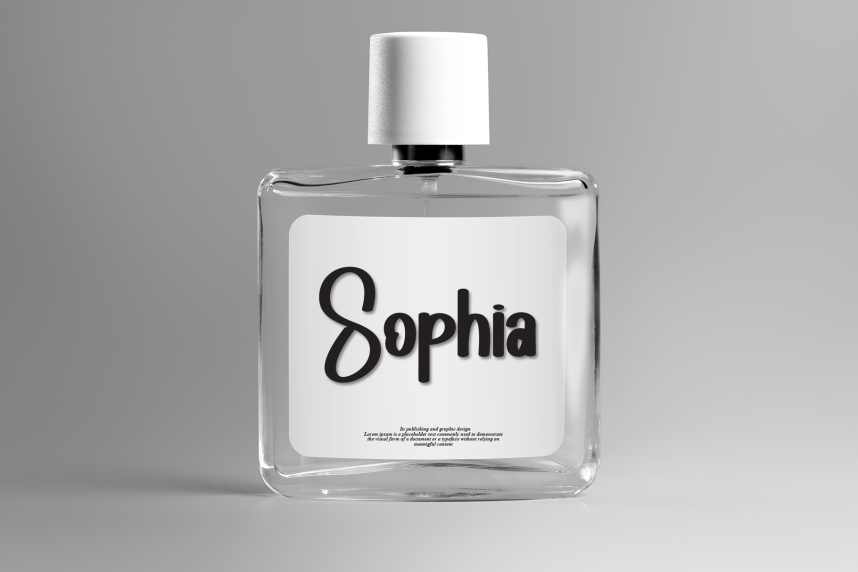
Restaurant – Creative Style Font
Restaurant – Creative Style Font is a sweet and friendly handwritten display font. Cute and fun, this font is ideal for writing wedding invitations, cards, or any other design that might need a playful touch!